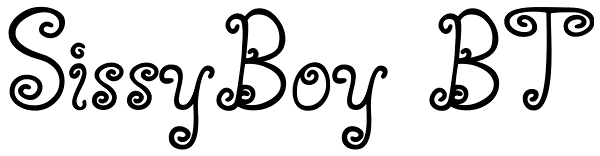
SissyBoy
SissyBoy, a bold version of Kate Peter’s typeface BabyDoll, was inspired by those shy, sensitive, artistic yet misunderstood young men that were relentlessly teased in their school days. We found the endless array of loops and curly-Qs as difficult...
SissyBoy BT
SissyBoy Extra BT